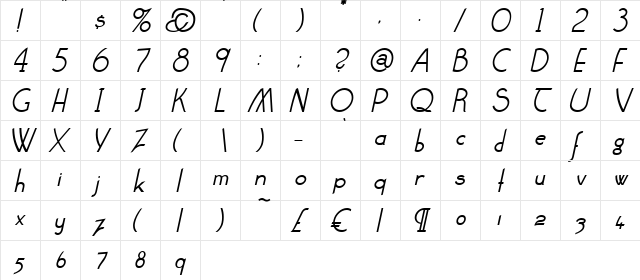
Claritty_Italic Normal
Design Context for Claritty_Italic Typeface
Claritty_Italic is a composed and adaptable typeface that performs quietly and consistently across a wide range of design contexts. The slanted form adds forward momentum and visual energy.